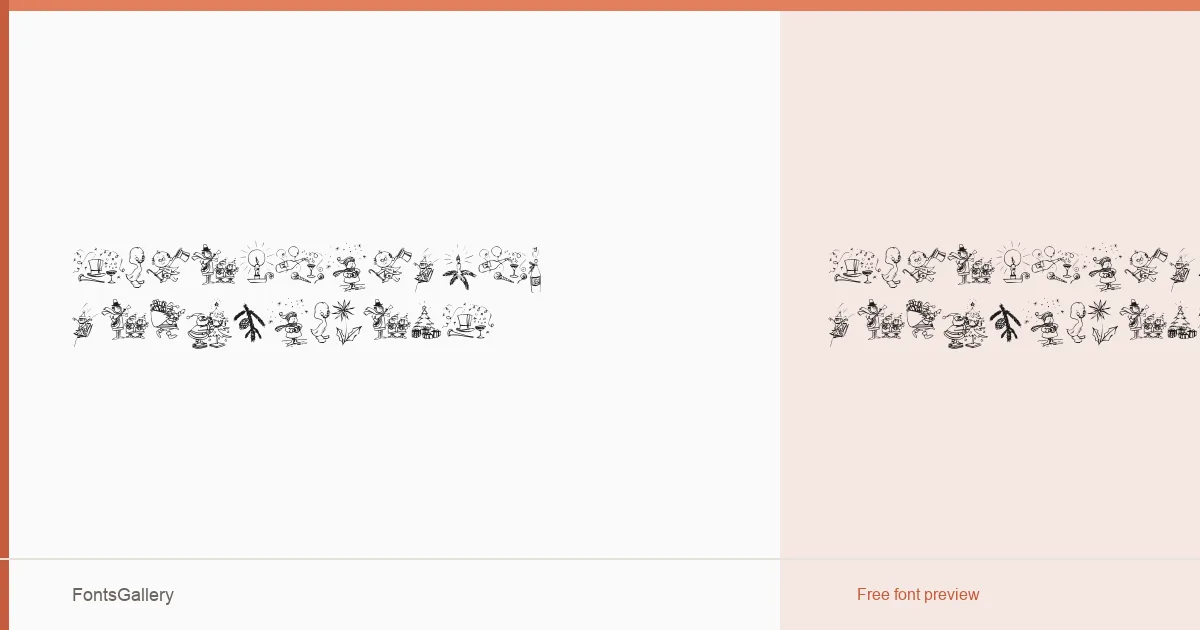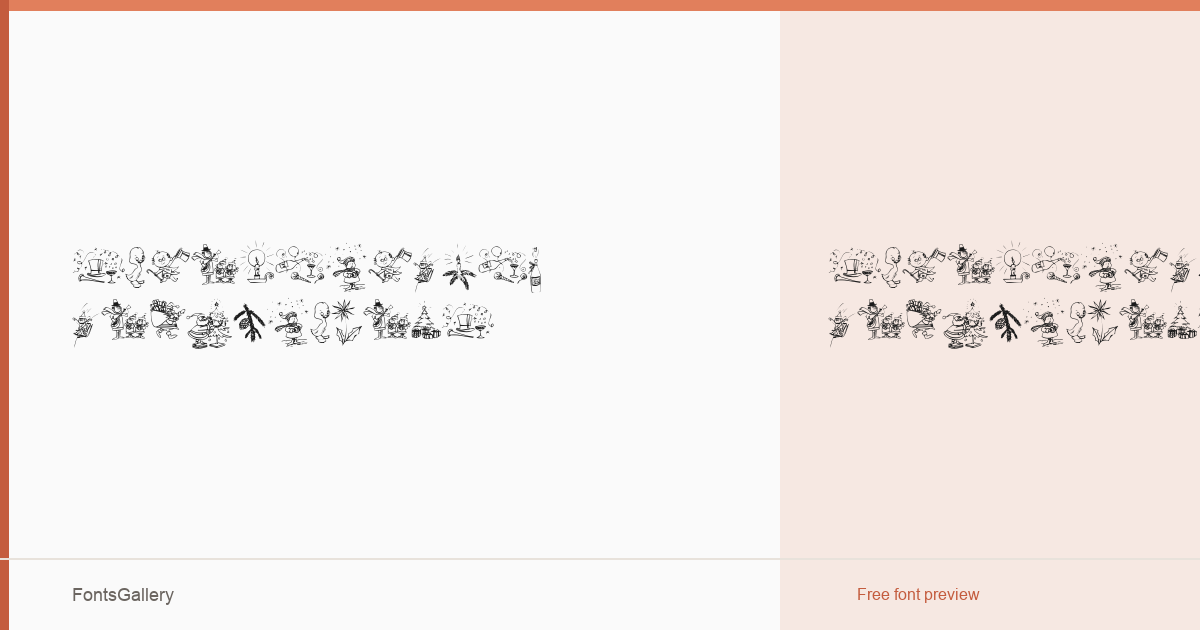
About Typographers Holidayfont Font
Typographers Holidayfont is a charming decorative typeface crafted by designer Dieter Steffmann, blending a playful spirit with vintage character. It brings a whimsical, festive energy that feels both nostalgic and full of personality. This font is an ideal choice for projects that call for warmth, celebration, and a touch of old-world charm.
As a decorative font with playful and whimsical mood tags, Typographers Holidayfont features letterforms rich in expressive detail and vintage-inspired ornamentation. The characters carry a lighthearted, hand-crafted quality that evokes classic holiday and storybook aesthetics. Its decorative nature makes each glyph a visual treat, adding flair and festivity to any typographic composition.
Typographers Holidayfont shines in invitation cards, greeting cards, children's books, and social media graphics where a celebratory and imaginative tone is desired. Its whimsical vintage character makes it especially well-suited for seasonal and special occasion designs. For a balanced typographic pairing, consider combining it with the clean neutrality of Helvetica or the complementary character of Aresink.